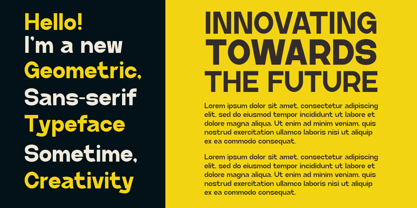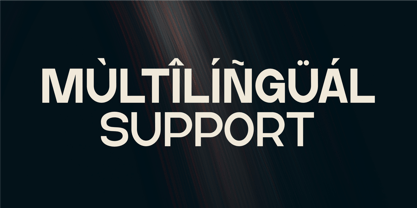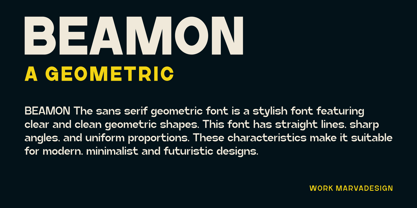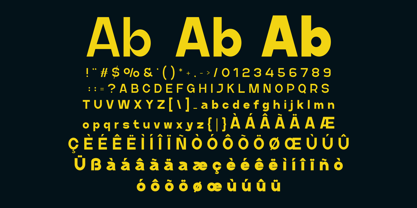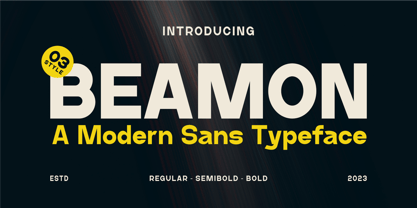
Beamon
by Marvadesign
The Beamon Font Family was designed by Febrie Setiawan and published by Marvadesign. Beamon contains 3 styles and family package options.
Introducing new typeface Beamon font is a clean and geometric sans-serif typeface, thoughtfully designed to convey a sense of professionalism and balance. Its structured yet approachable design makes it an excellent choice for corporate identity, branding, and other professional applications. With its modern aesthetic and harmonious proportions, Beamon ensures clarity and versatility, making it a reliable choice for projects that require a polished and contemporary look.
Designers: Febrie Setiawan
Publisher: Marvadesign
Foundry: Marvadesign
Design Owner: Marvadesign